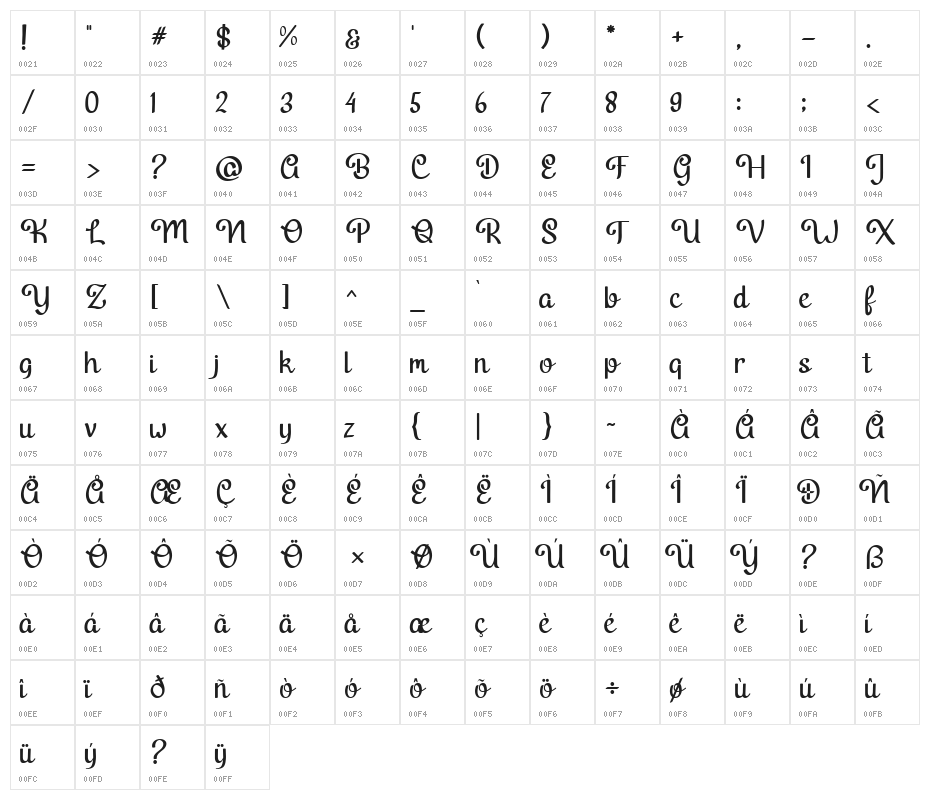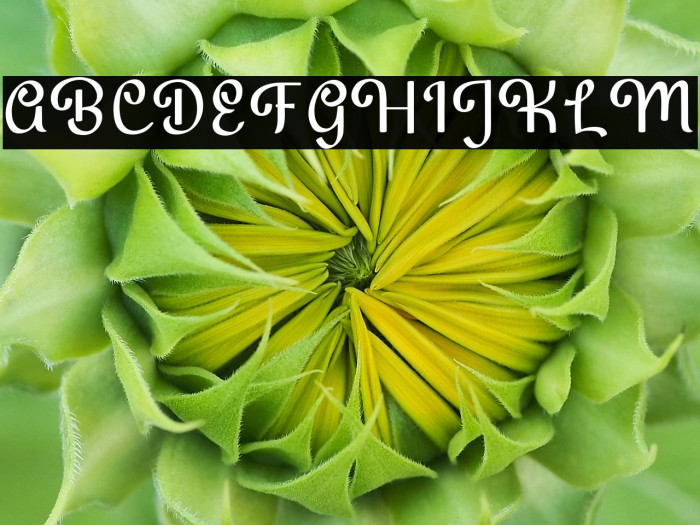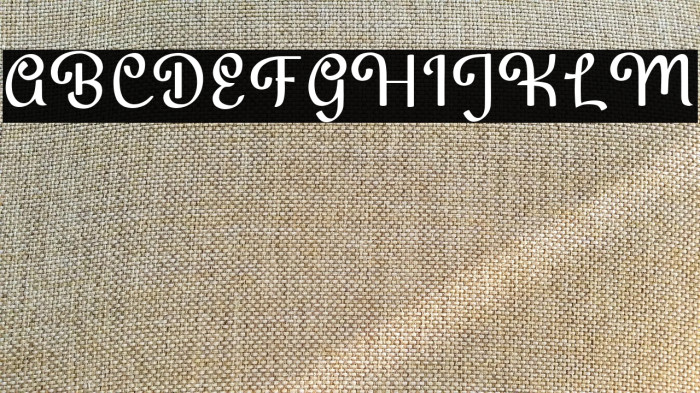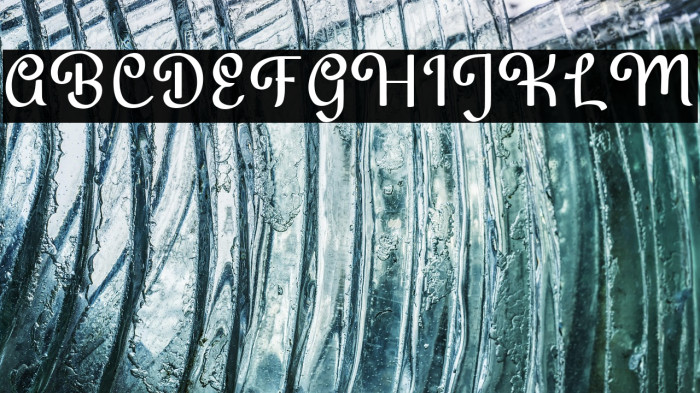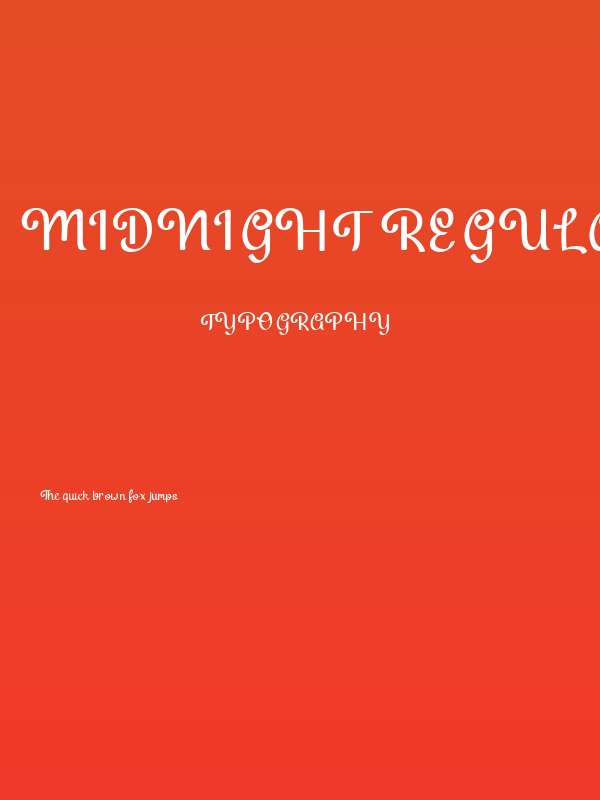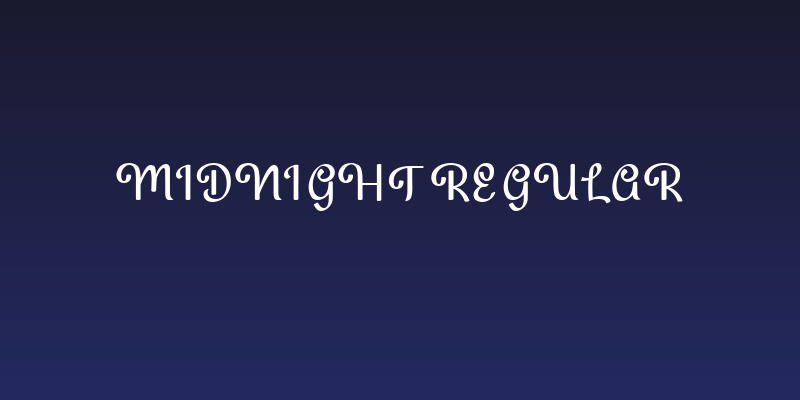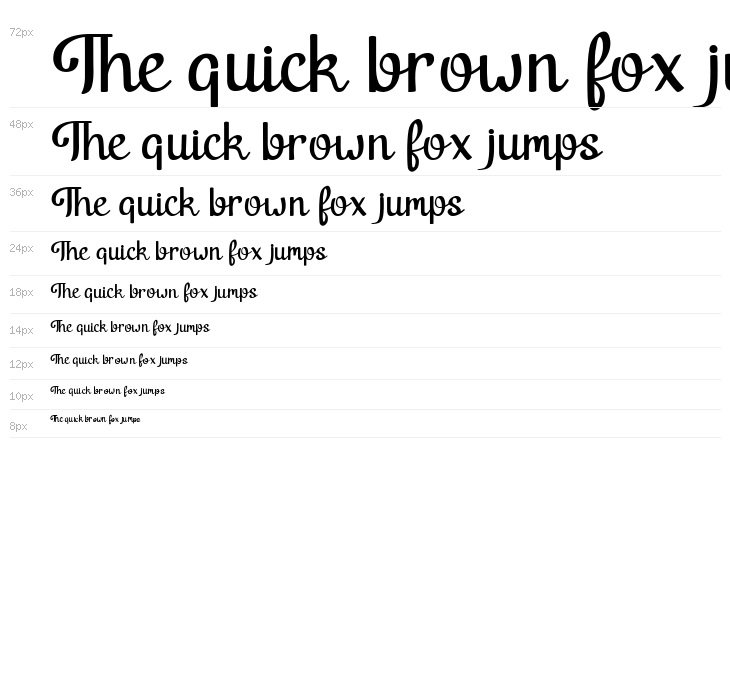
midnight Regular Font
midnight Regular Description
This font features a playful and whimsical style, characterized by its curvy and flowing letterforms. The uppercase letters have a unique blend of traditional and modern elements, with some characters displaying a slight flourish. The lowercase letters maintain a consistent style, with rounded edges and a friendly appearance. The numerals are bold and clear, ensuring readability. Special characters are designed to match the overall aesthetic, adding a touch of elegance. The font's overall look is both approachable and stylish, making it suitable for a variety of creative applications.
| Proposed Projects | Ideal for greeting cards, invitations, children's books, and playful branding projects. |